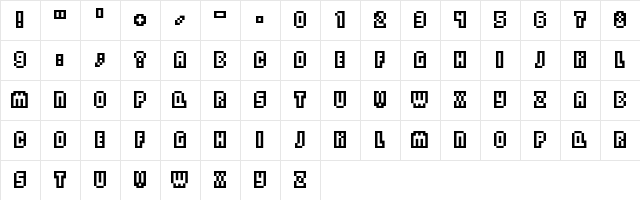
Pixelyn Regular
Design Context for Pixelyn Typeface
Pixelyn celebrates the constraints of early digital type, turning pixel geometry into a distinctive and immediately recognisable style.
A natural choice for retro game titles, chiptune music branding, 8-bit UI, and digital nostalgia projects.
Pro Tip: Pair Pixelyn with flat colour palettes and simple geometric UI elements to reinforce its digital aesthetic.